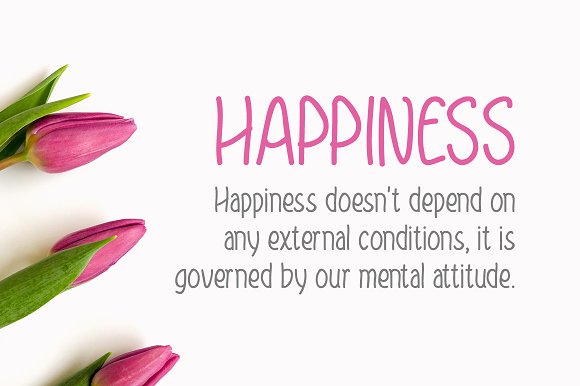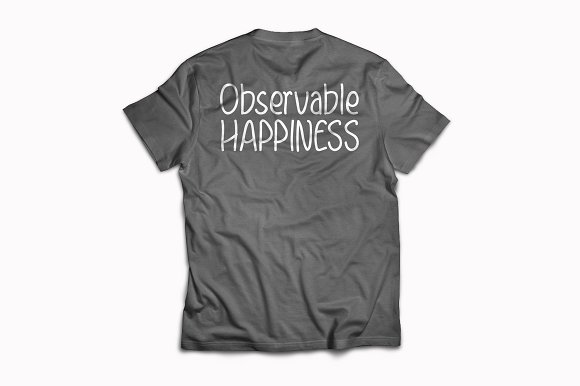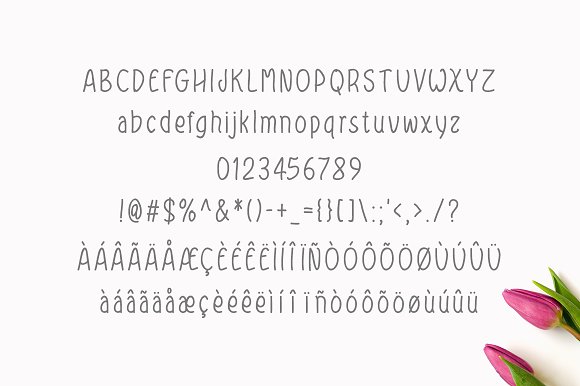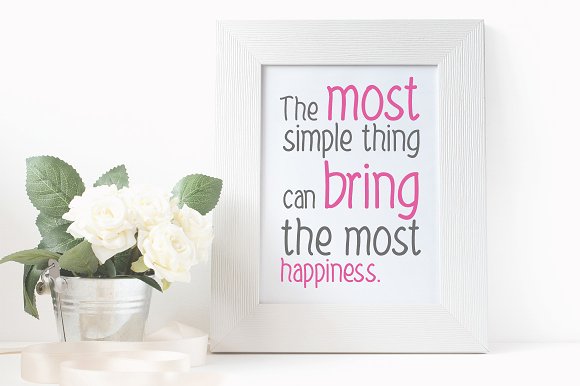
Observable Happiness Typeface
Observable Happiness is a brand new handwritten font. Very suitable for logos, t-shirts, print design, website headers, photo frames, flyers, album covers, posters, image sliders and much more.